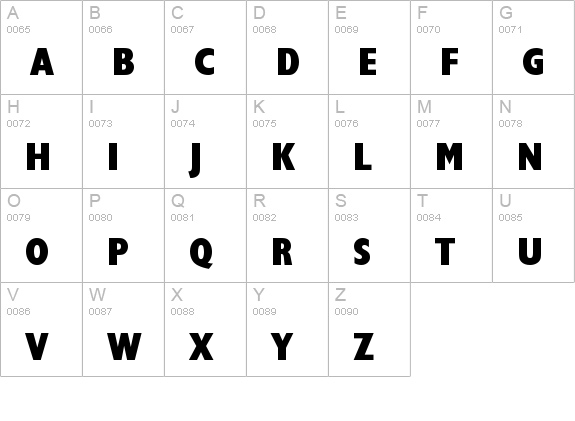
Garrison Cond. Sans BOLD is a strong, high-contrast, condensed-width variant in the Garrison typeface family \xE2\x80\x94 well suited to headlines, attention-grabbing titles, and strong calls-to-action.
Garrison Cond is a modern and stylish sans-serif typeface that exudes sophistication and elegance. Its clean lines and contemporary design make it perfect for a wide range of projects, from branding to editorial design. With its versatility and timeless appeal, Garrison Cond is sure to make a statement in any design setting. What sets Garrison Cond apart is its effortless readability and sleek appearance. Whether used in headlines, body text, or logos, this font will always deliver a polished and professional look. The condensed letterforms give it a unique edge, making it stand out from other sans-serif fonts. One of the best things about Garrison Cond is that it is available for free download at FontsMarket.com. This means that you can easily access and use this high-quality typeface in your projects without any cost. So why wait? Give your designs a fresh and modern touch with Garrison Cond today!